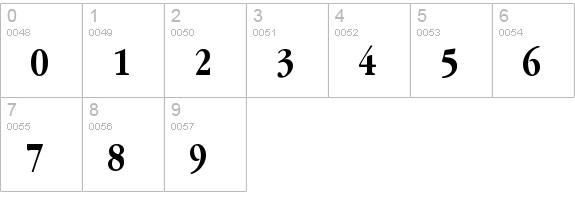
Apple Garamond BT Bold is a strong, high-contrast variant in the Apple typeface family \xE2\x80\x94 well suited to headlines, attention-grabbing titles, and strong calls-to-action.
Apple Garamond BT Bold is a classic and elegant font that exudes sophistication and style. With its bold weight and timeless design, this typeface is perfect for creating impactful headings and titles. The sturdy serifs and graceful curves of Apple Garamond BT Bold make it a versatile choice for a wide range of design projects, from print materials to digital content. Best of all, Apple Garamond BT Bold is available for free download at FontsMarket.com. Whether you're a professional designer looking for a reliable typeface or a casual user in need of a stylish font for personal projects, Apple Garamond BT Bold offers the perfect blend of beauty and functionality. Don't miss out on the opportunity to enhance your designs with this exquisite font - download Apple Garamond BT Bold today and take your typography to the next level!